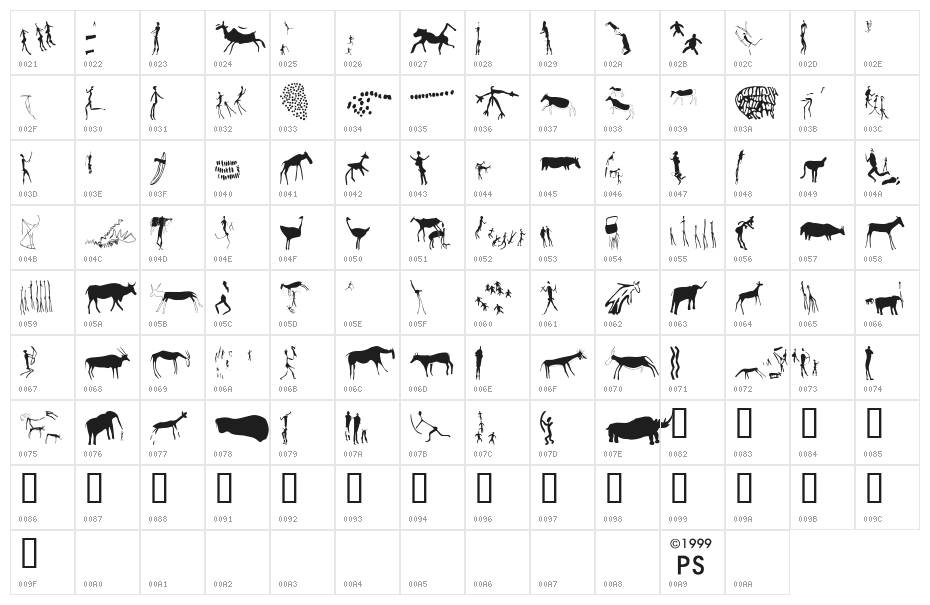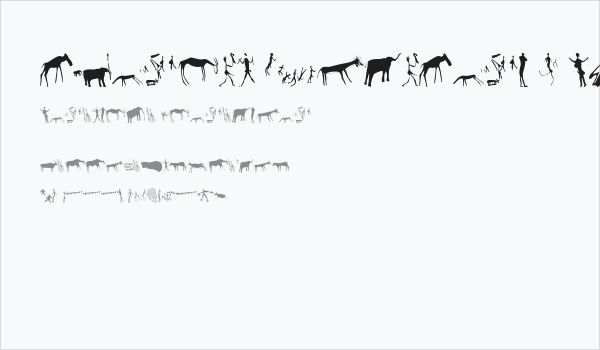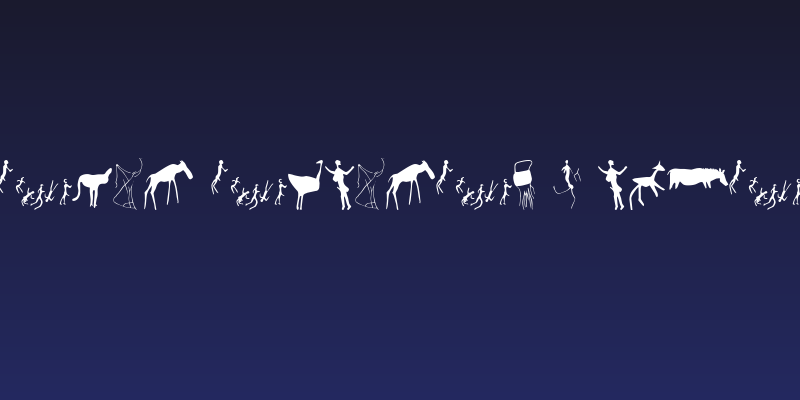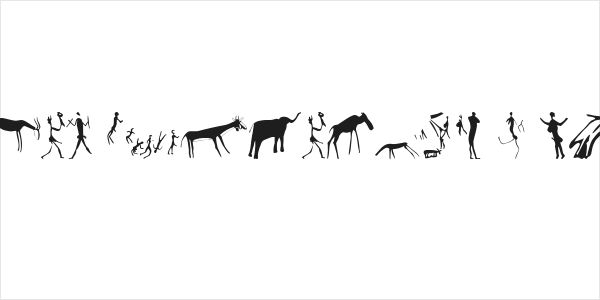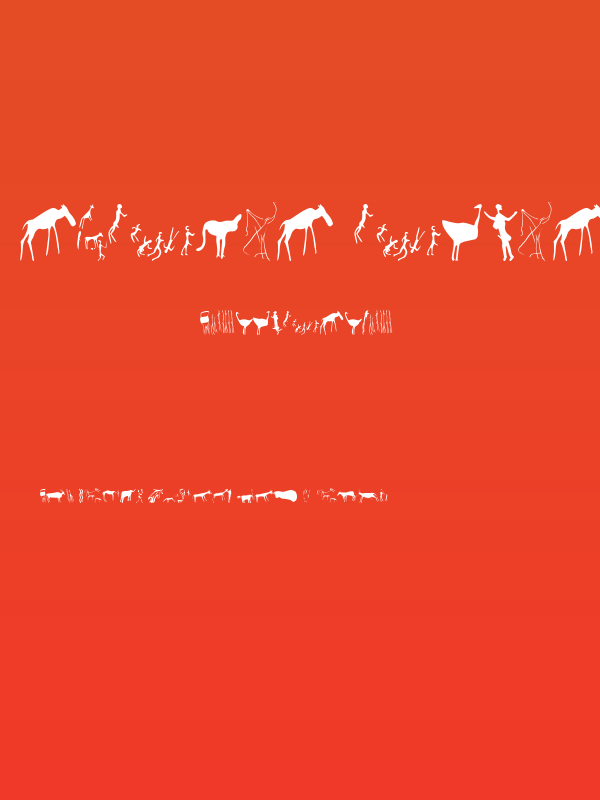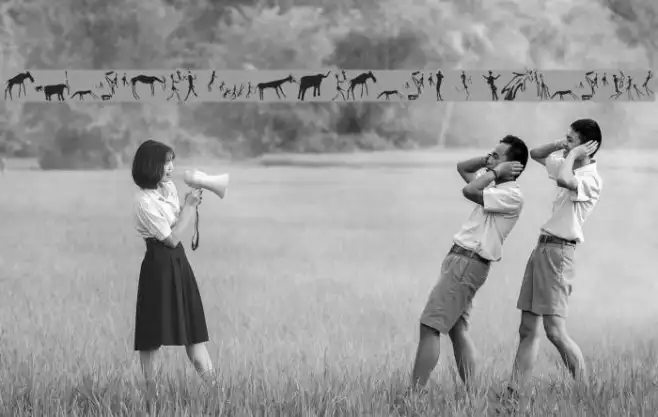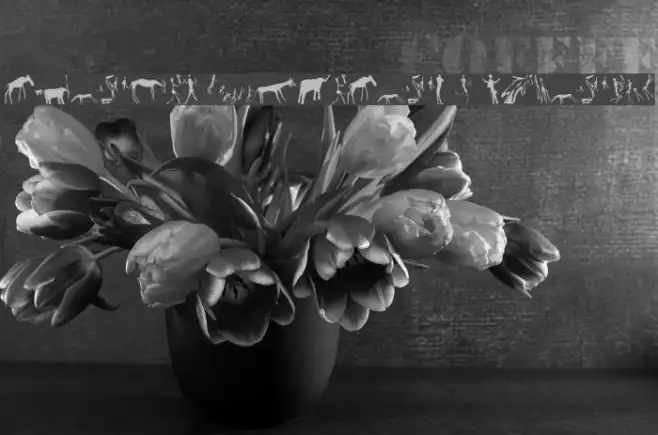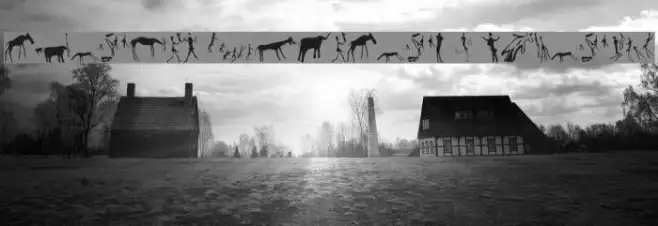
Afrika RockArt N Cberg2 Font
Afrika RockArt N Cberg2 Description
A collection of glyphs inspired by African rock art, featuring hand-drawn silhouettes of humans, animals, and abstract shapes. The style is organic, irregular, and evocative of ancient cave paintings, with varying line thickness and expressive forms.
| Overall Style | Primitive, Decorative, Organic |
| Use Case | Display, Thematic graphics, Educational visuals |
| Proposed Projects | Cultural exhibitions, educational materials, historical documentaries, themed posters, art installations. |